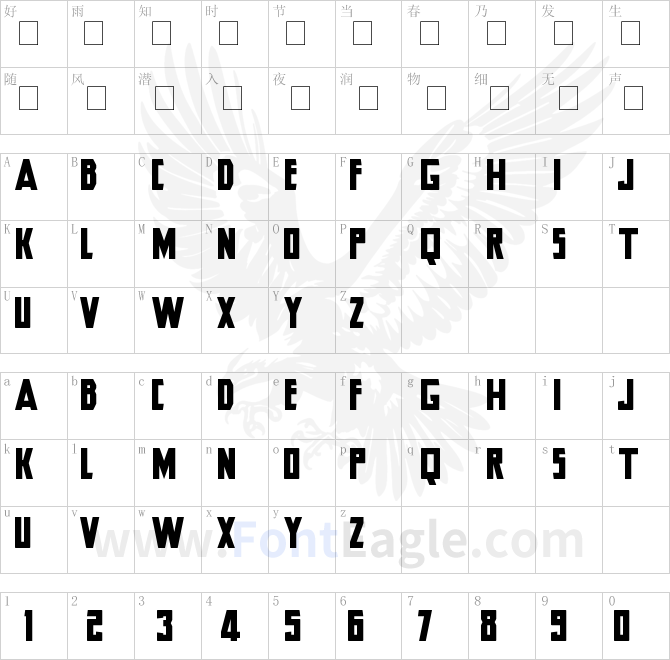
- Font name:Hero
- Font Subfamily ID:Hero Regular V.1
- Font Full Name:Hero Regular
- Font Version:Version 1.00 2010, initial release
- Postscript:HeroRegular